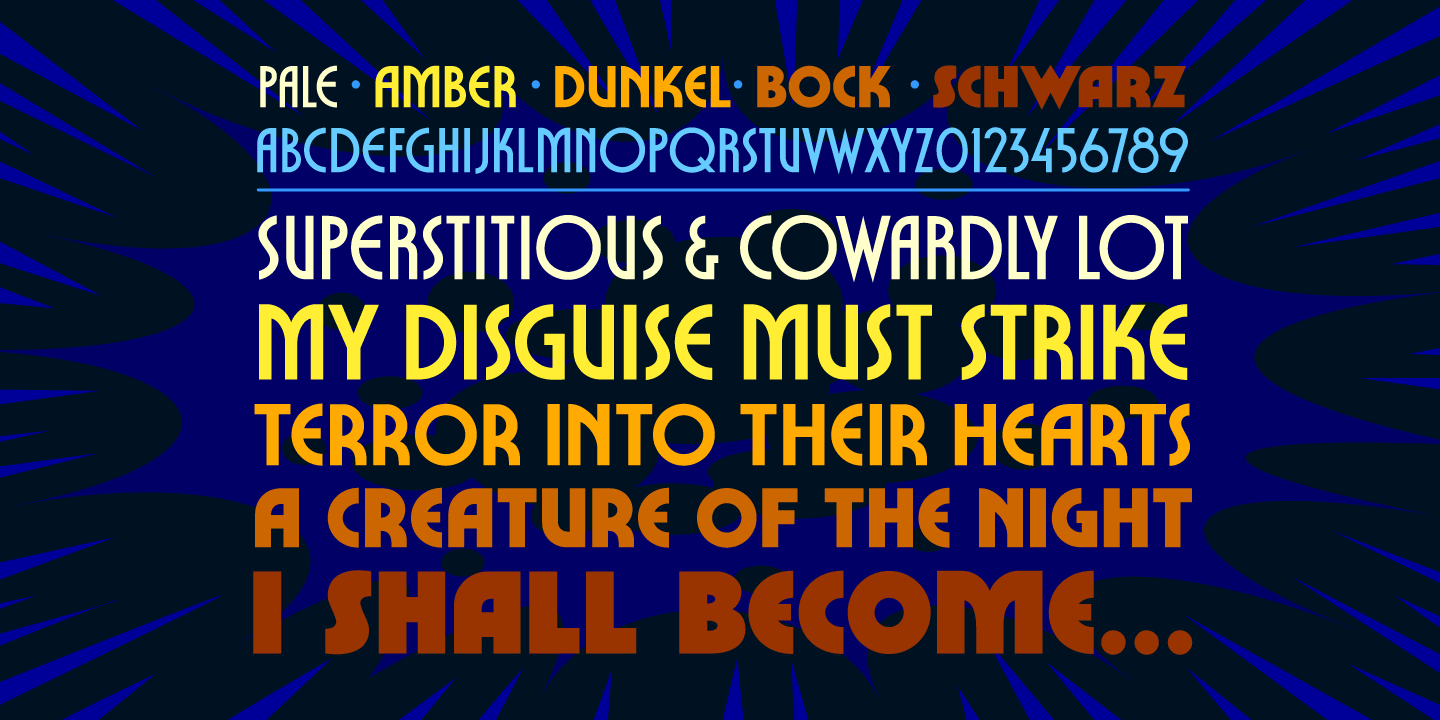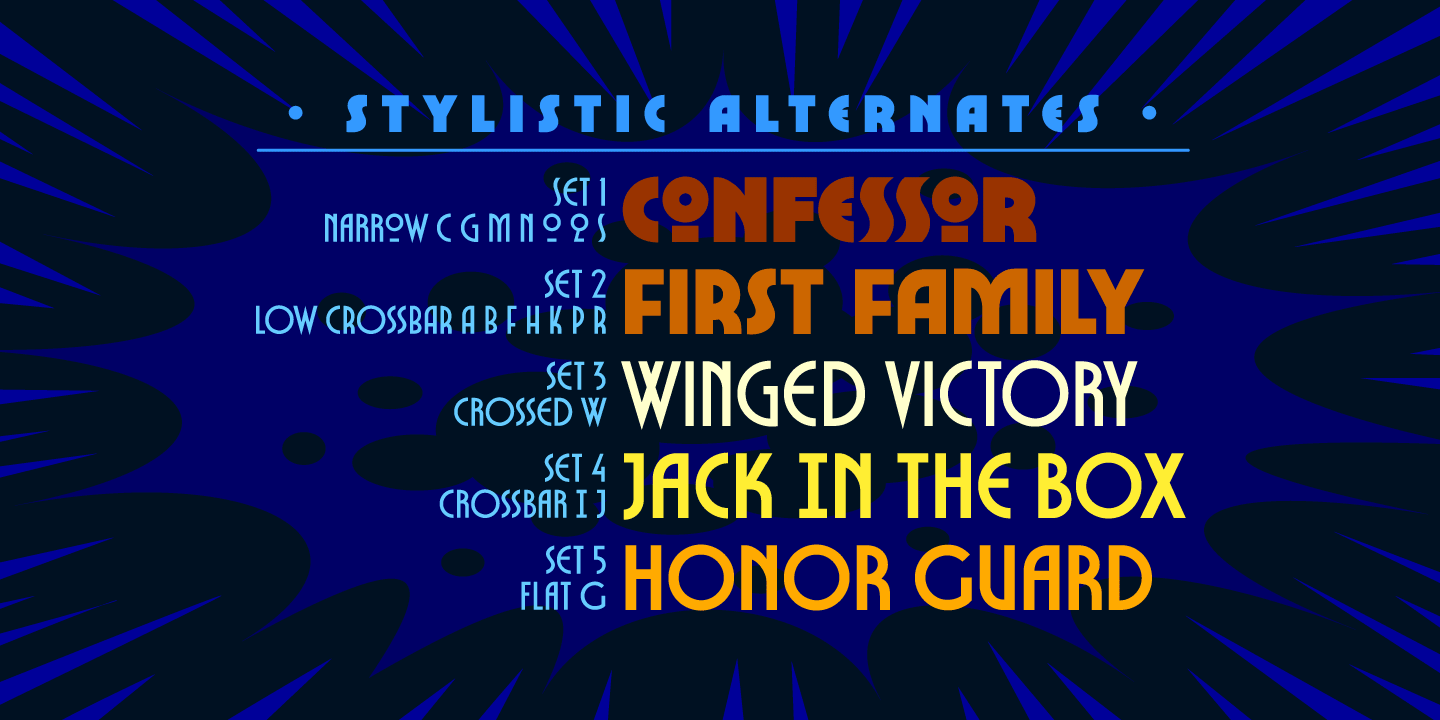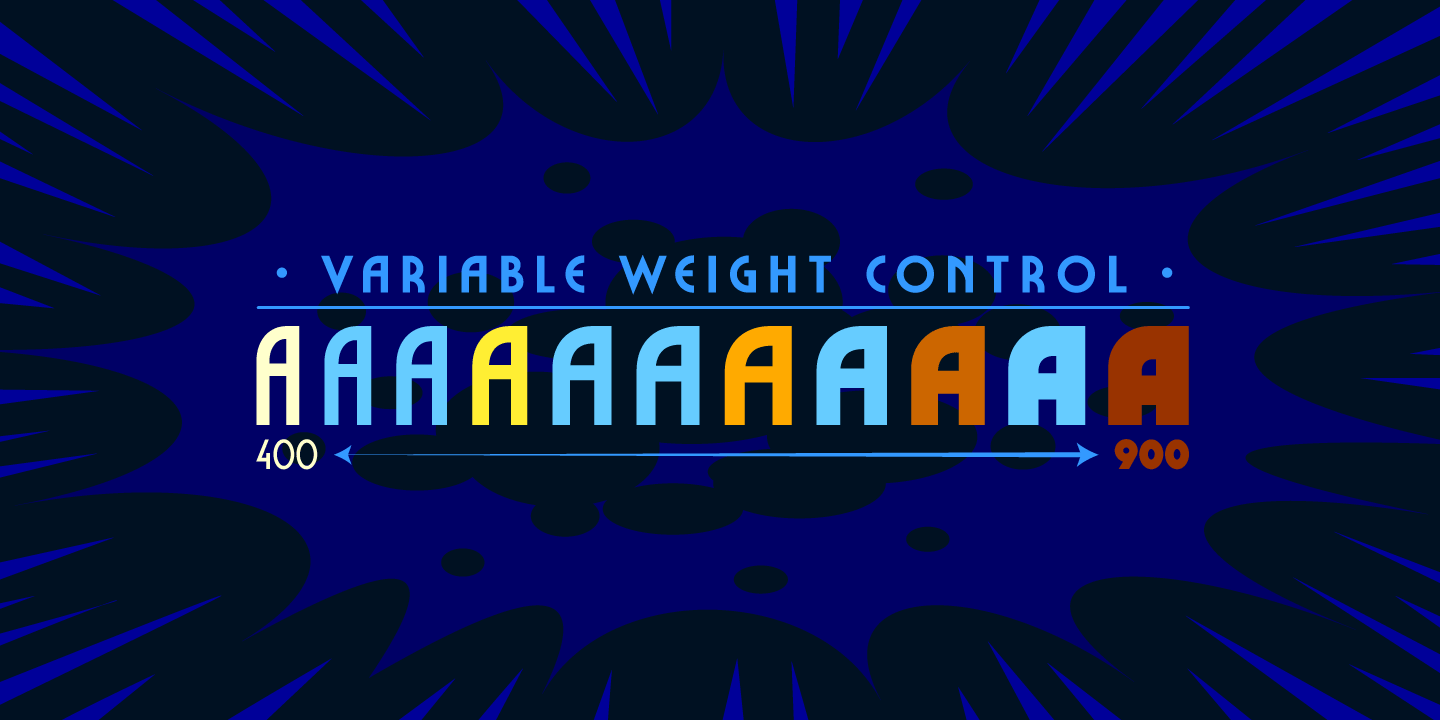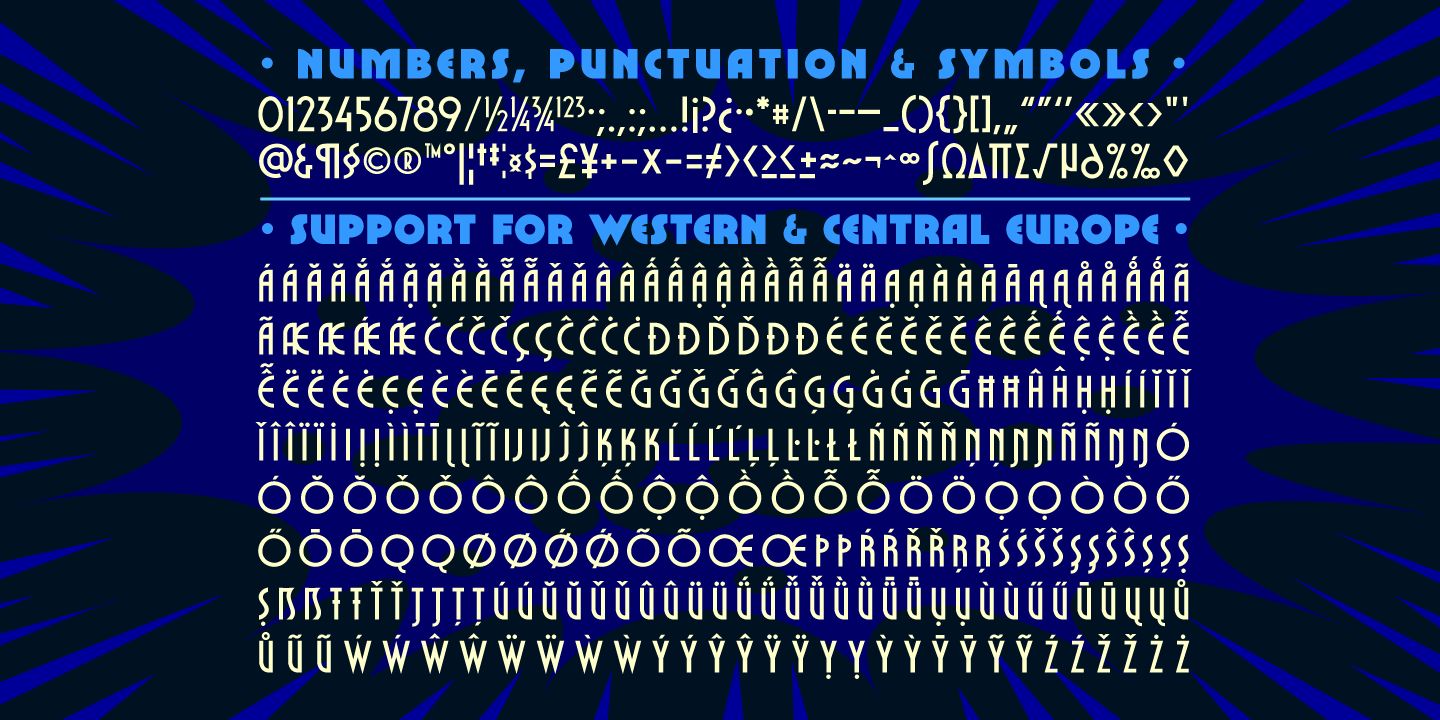
Dutch Courage Lager
Font Family by Comicraft Fonts
Dutch Courage Lager has a round, 1970s feel with weights from “Pale” to “Schwarz” and a variable font to select any point between. Each family includes four sets of stylistic alternates—it’s a barrelful of delicious options!